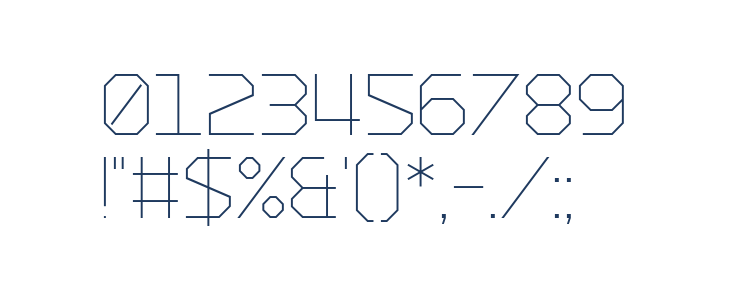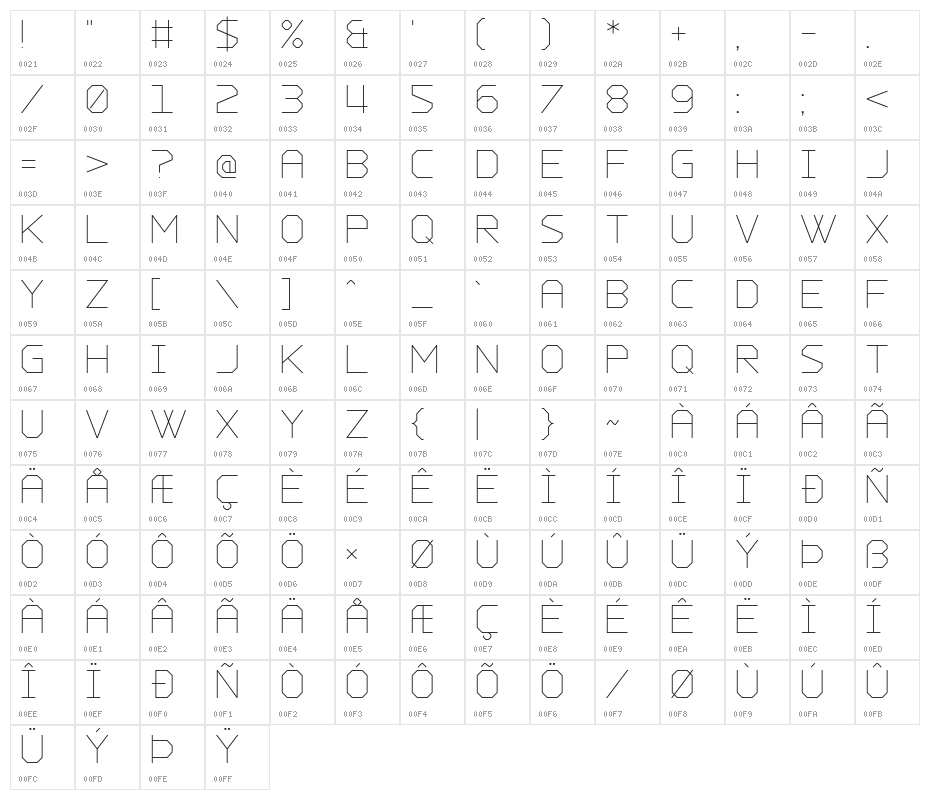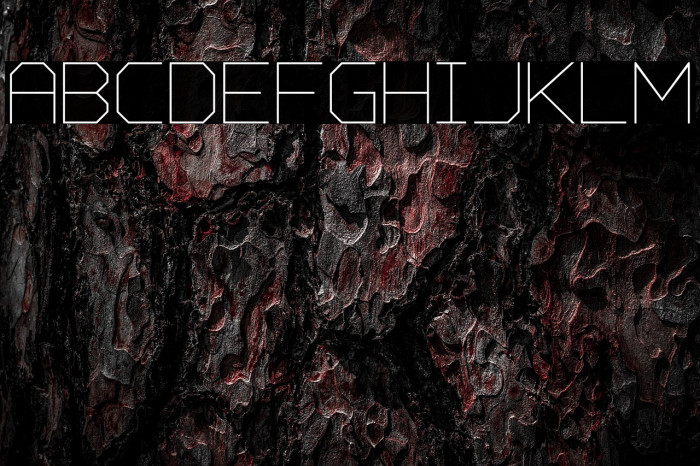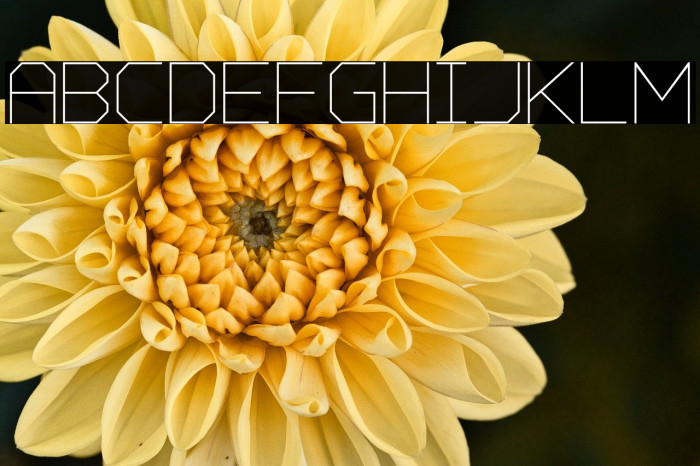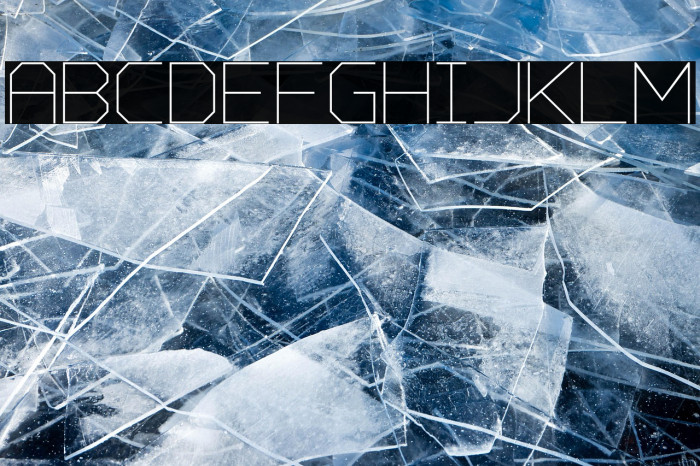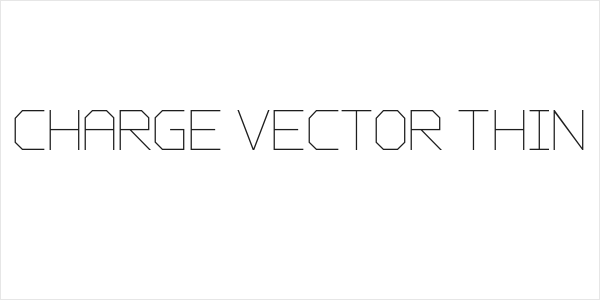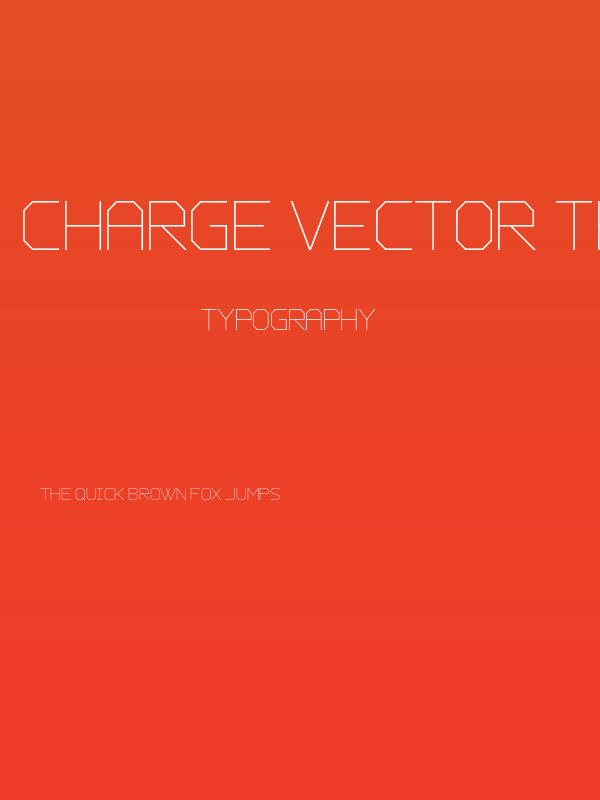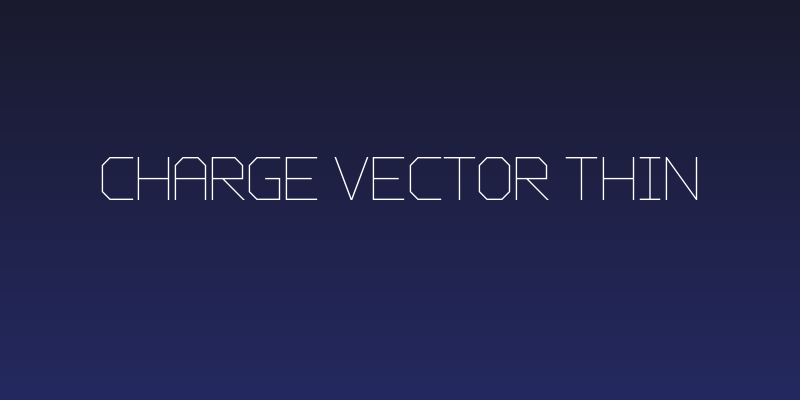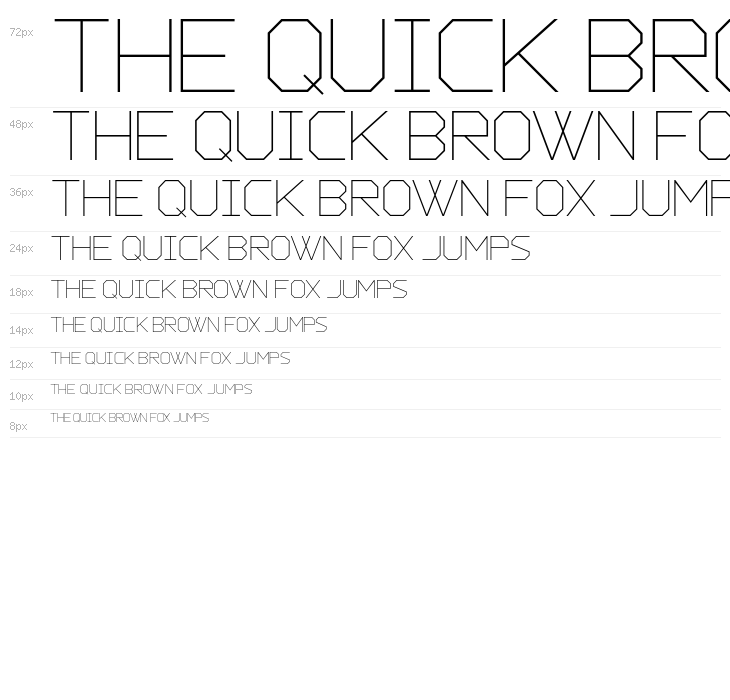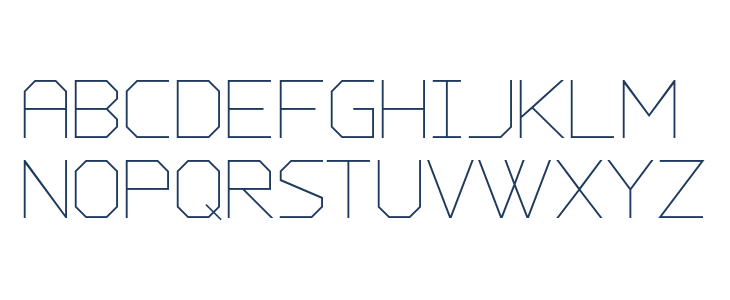
Charge Vector Thin Font
Charge Vector Thin Description
This font features a geometric and angular design, characterized by its thin, straight lines and sharp corners. The letters are constructed with a consistent stroke width, giving it a modern and technical appearance. The uppercase and lowercase letters maintain a uniform height, contributing to a clean and organized look. The numerals and special characters follow the same angular style, ensuring visual consistency across all elements. This font's minimalistic approach makes it suitable for digital and tech-oriented projects, where clarity and precision are paramount.
| Use Case | Headlines, Logos, Digital interfaces |
| Proposed Projects | Perfect for tech branding, digital interfaces, futuristic posters, and minimalist graphic designs. |